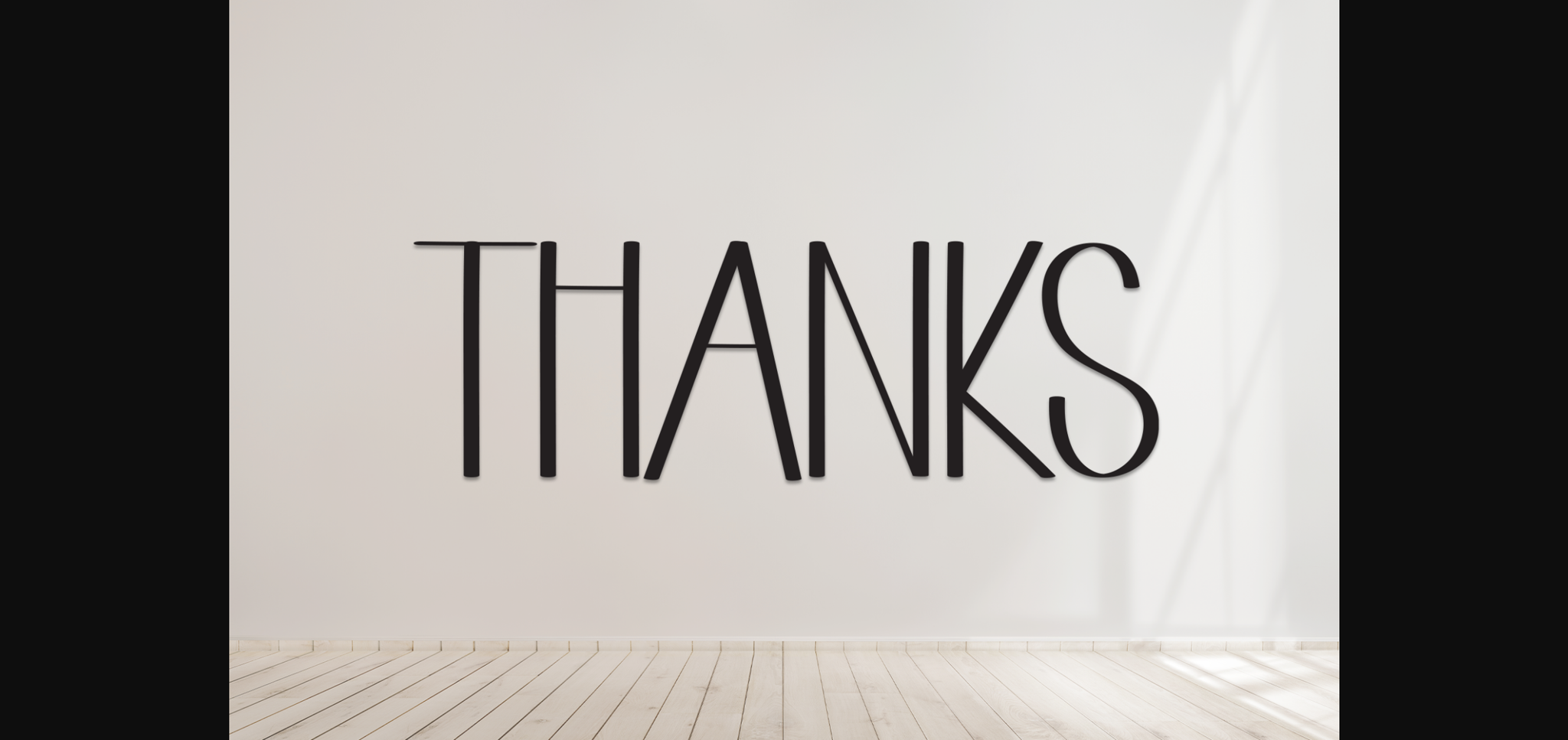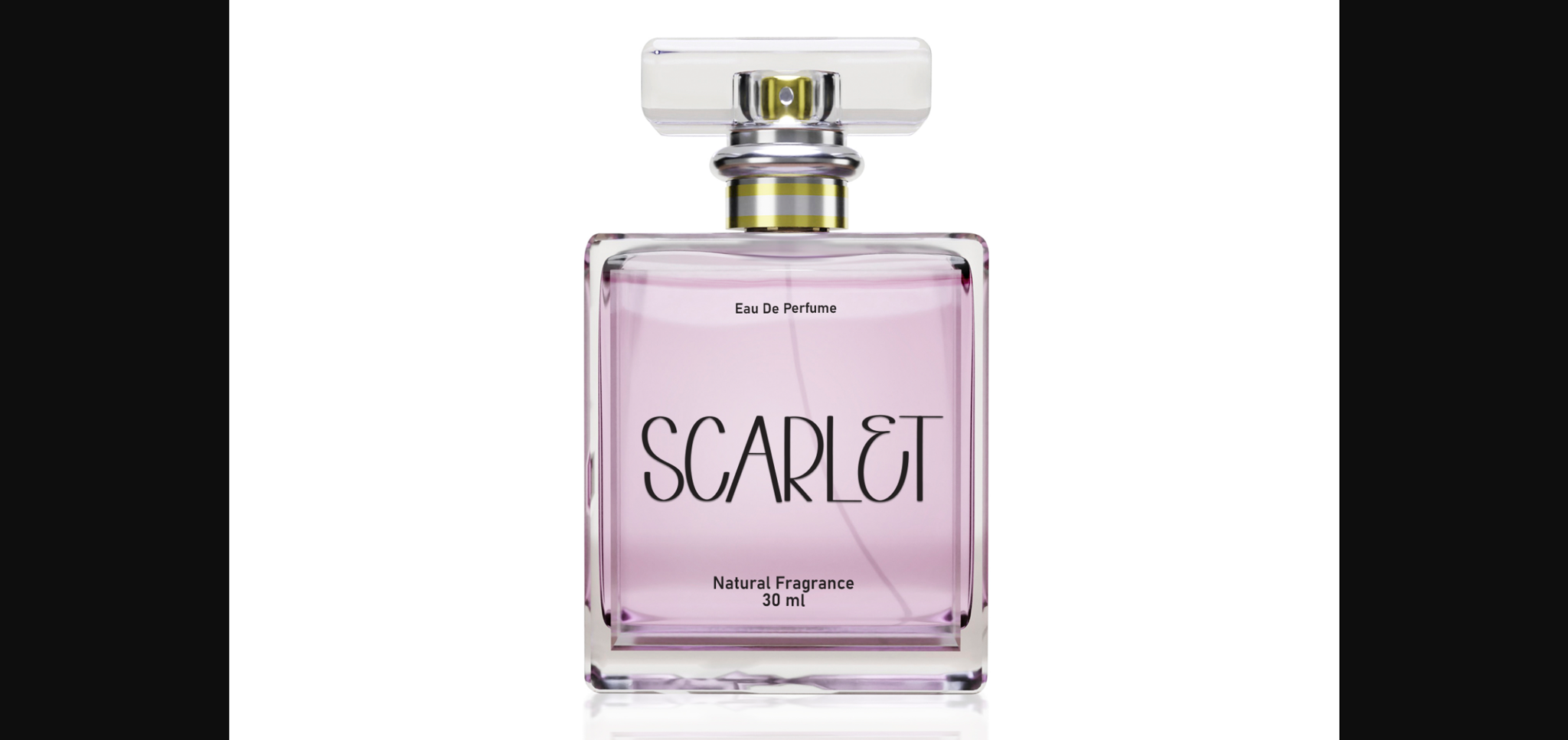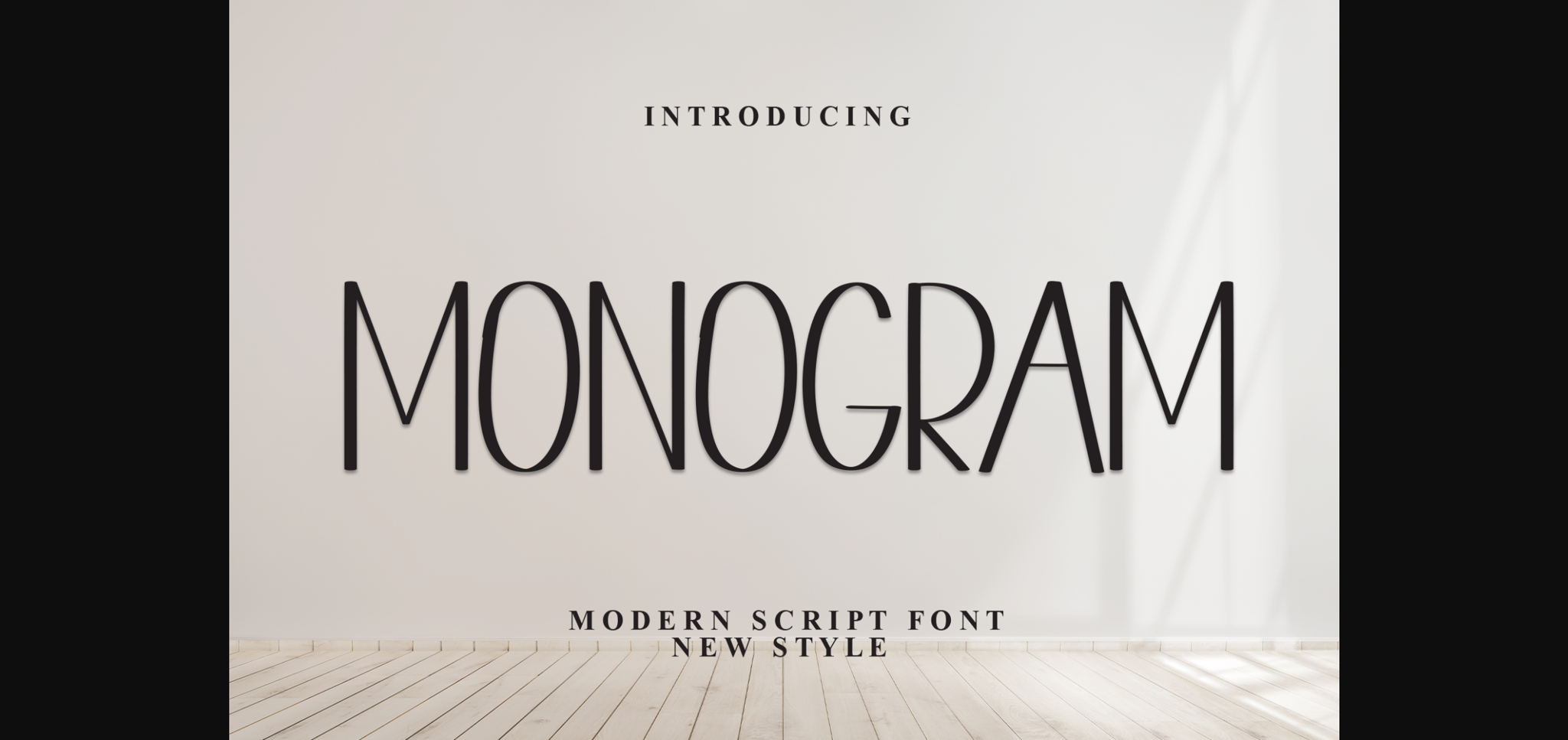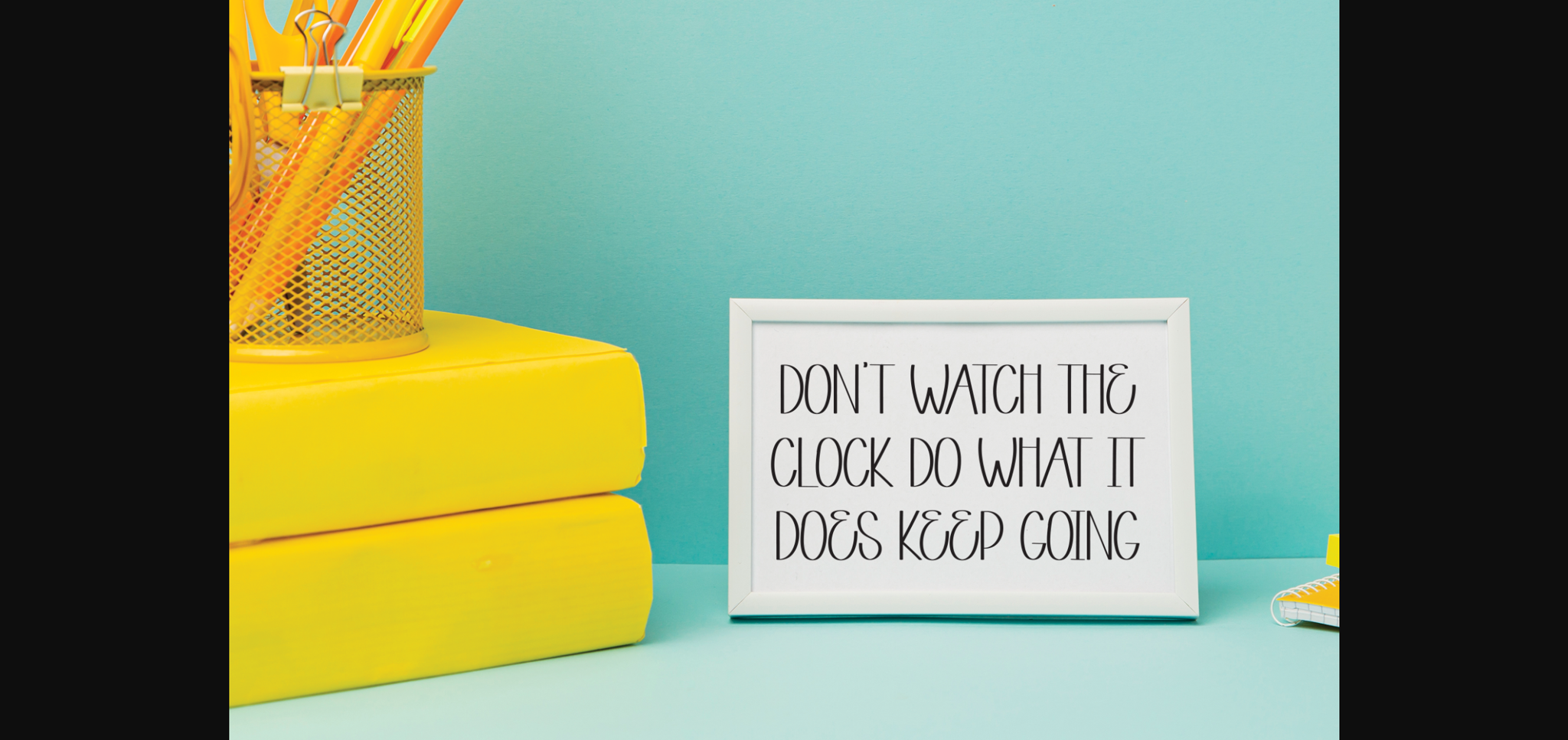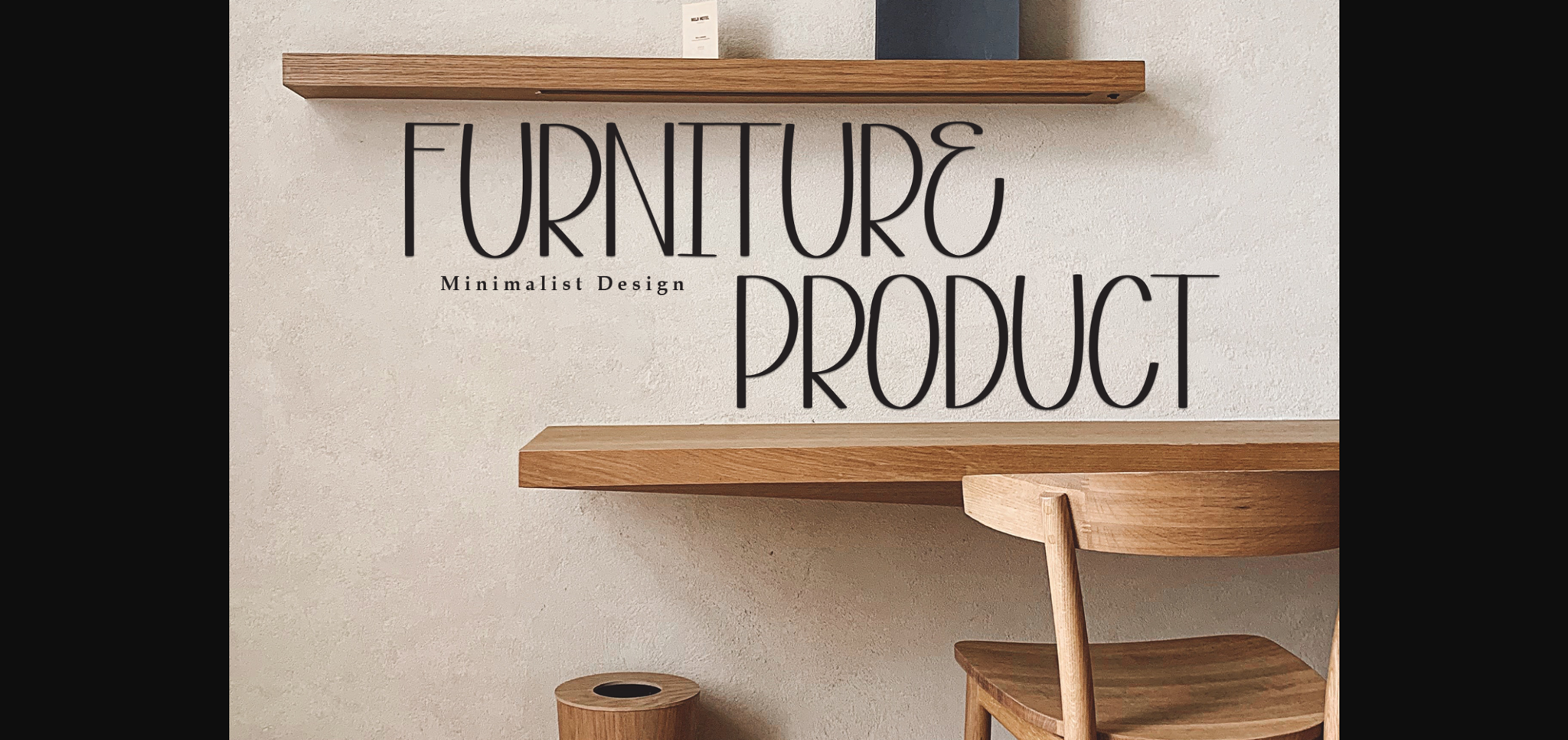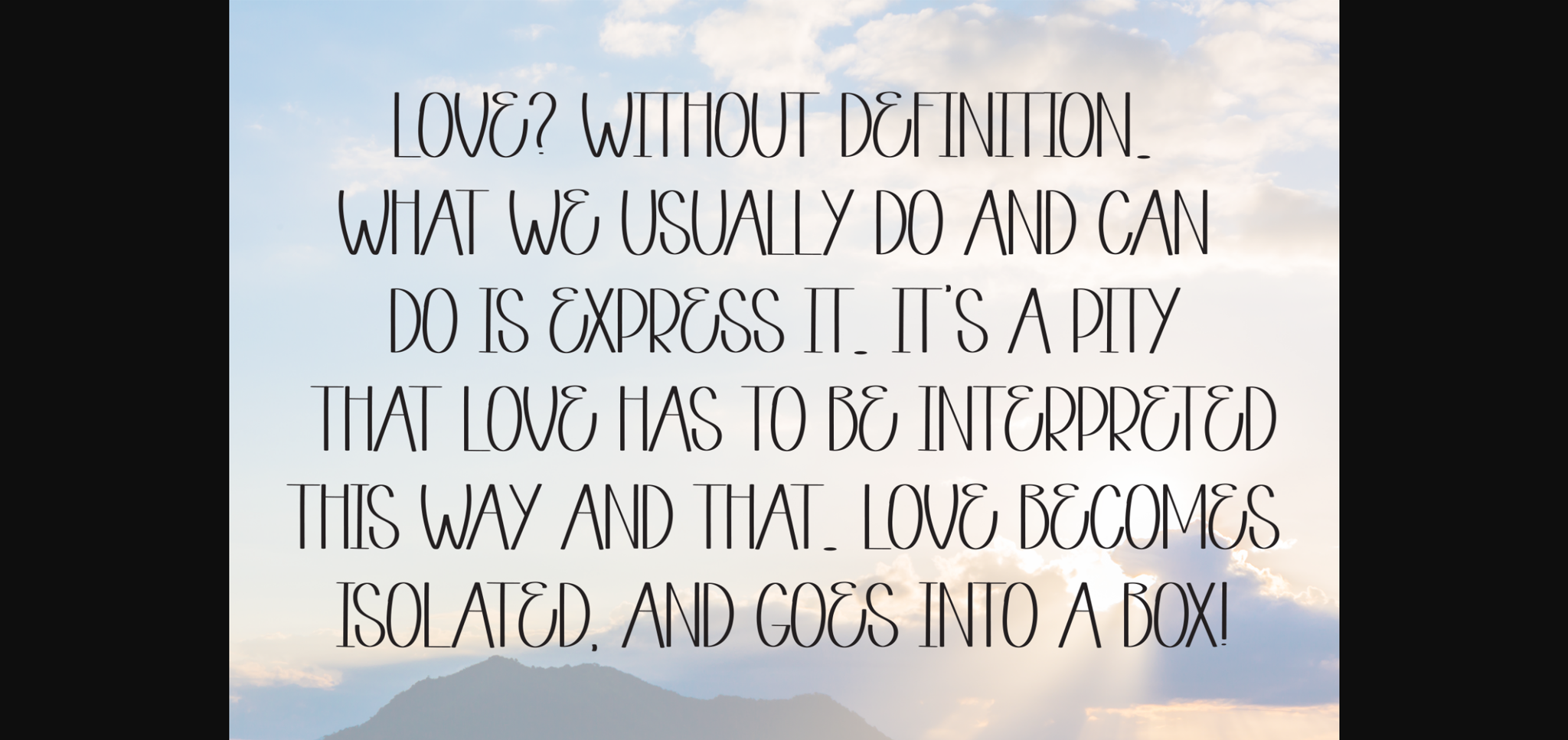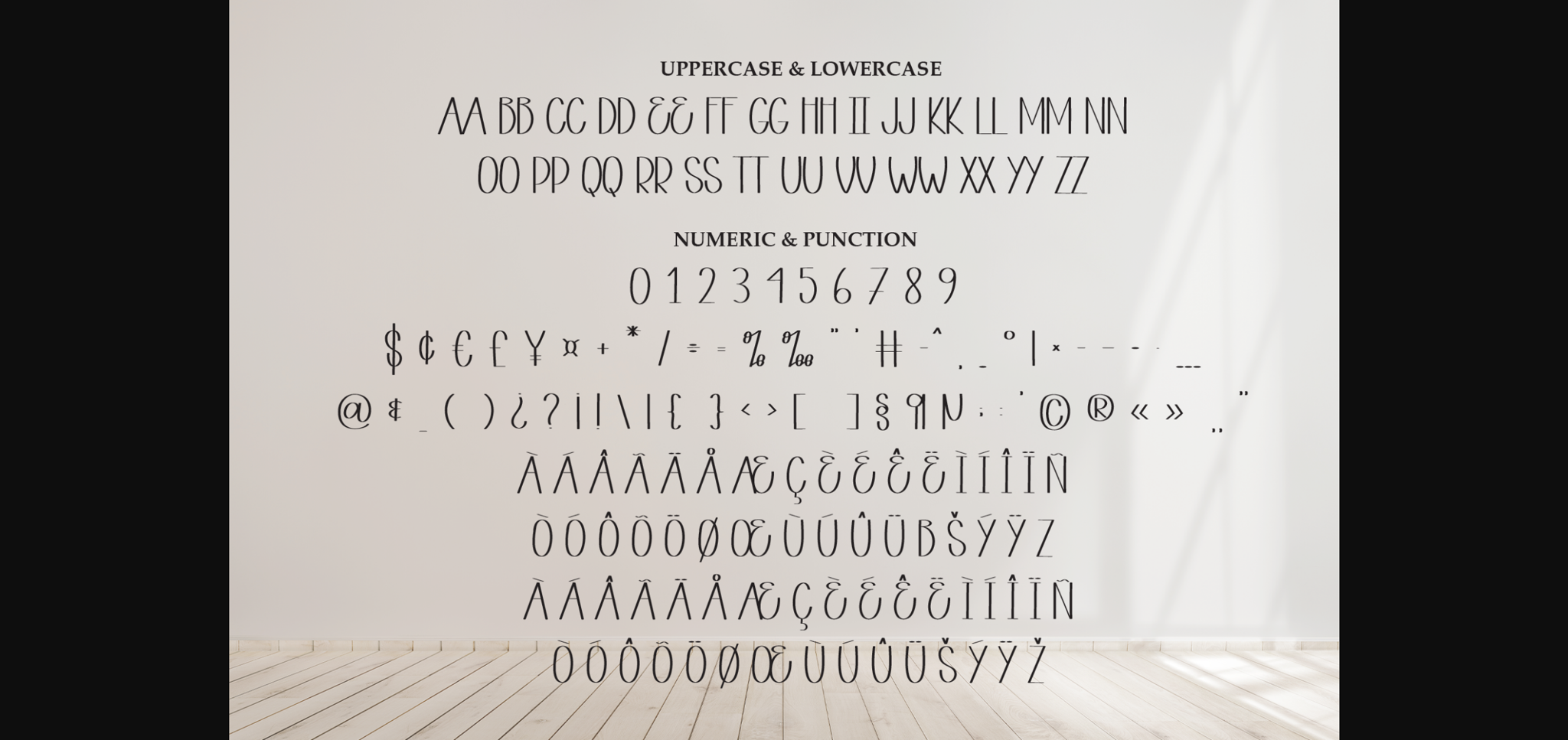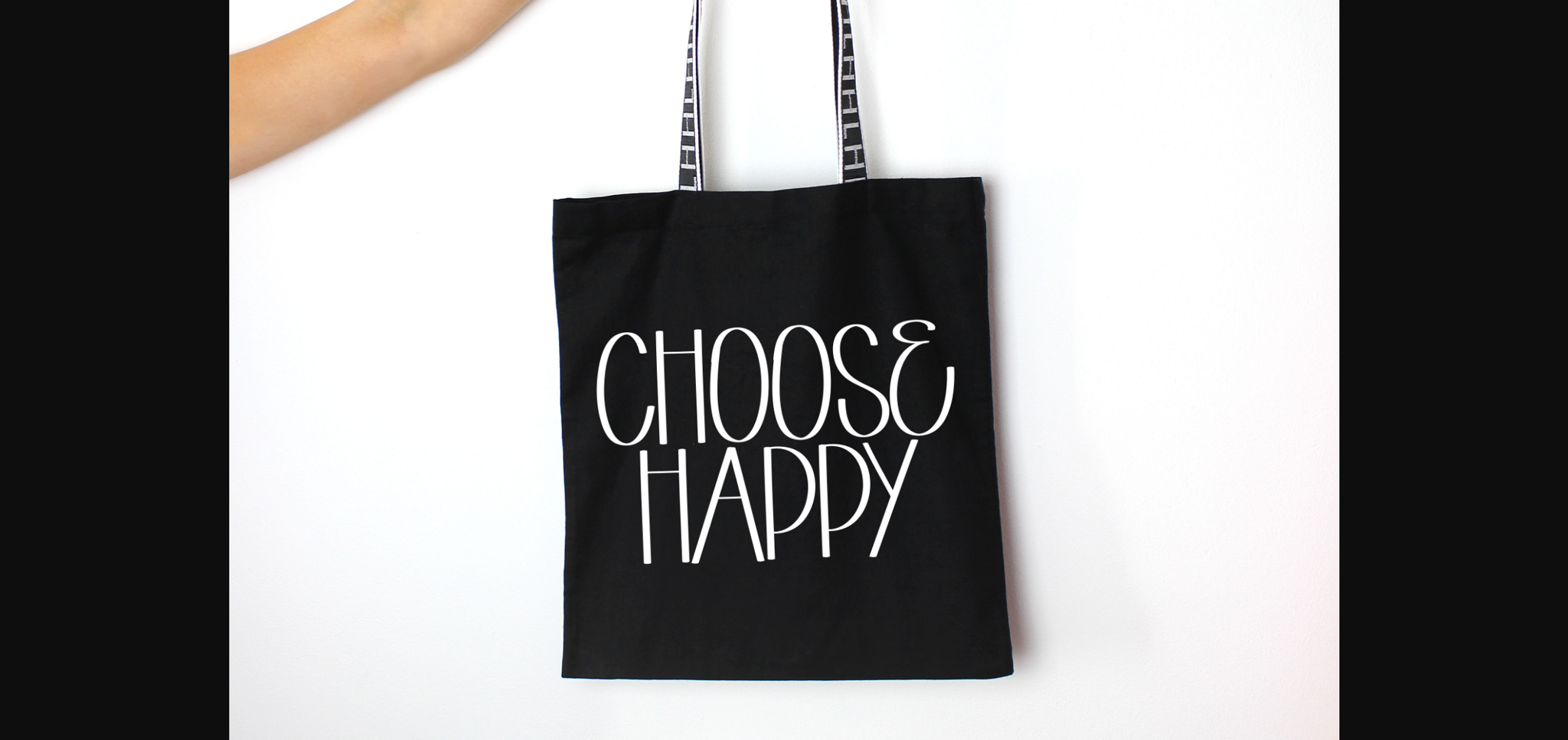
HomeSans Serif FontsMonogram Font Sans Serif Fonts Monogram Font FacebookXPinterestWhatsApp 1 of 10 ... Monogram Font Poster 2... Monogram Font Poster 3... Monogram Font Poster 4... Monogram Font Poster 5... Monogram Font Poster 6... Monogram Font Poster 7... Monogram Font Poster 8... Monogram Font Poster 9... Monogram Font Poster 10... About Monogram Font Monogram is a sweet and friendly sans-serif font. Cute yet versatile, this font is ideal for writing wedding invitations, cards, or any other design that might need a fresh touch! DOWNLOAD NOW People also explored Noreman Font Sunshine Font Behavioral Font Agalenn Font Valeria Font Grimalkin Font Brigattin Font Gedang Font Higher Dreams Font 253 0 TagsMonogram Font Previous articlePaperline FontNext articleHappy February Font LEAVE A REPLY Cancel reply Comment: Please enter your comment! Name:* Please enter your name here Email:* You have entered an incorrect email address! Please enter your email address here Website: Save my name, email, and website in this browser for the next time I comment. Personal Use Free New Normal Personal Use Free Read more about this font Velasco Personal Use Free Read more about this font Gupis Personal Use Free Read more about this font Romansya Personal Use Free Read more about this font BLOG Free vs Paid Fonts: Why Investing in Premium Fonts Is Worth It Free vs Paid Fonts: Why Premium Fonts Are Worth It in 2025 The debate of free vs paid fonts continues in the design world. While... Best Fonts for YouTube Videos: Make Your Thumbnails Stand Out Top 7 Google Fonts Alternatives for Faster and Privacy-Friendly Web Design (2025) Fonts That Capture the Spirit of New York City